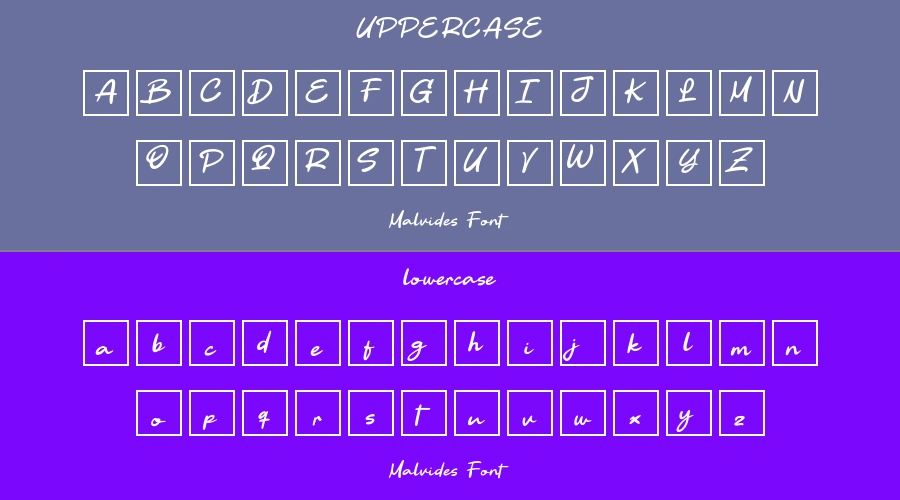
About Malvides Font
Malvides Font embodies typographic excellence through its masterful combination of bold expressions and market differentiation. Created for editorial design, this typeface delivers exceptional versatility and technical sophistication across all applications. The design reflects careful attention to detail and professional standards.
Advanced capabilities include distinctive teardrop terminals and versatile discretionary ligatures, giving designers creative control. When used in retail environments, Malvides Font exhibits remarkable language switching. The harmonious balance between loop structure and scholarly tradition sets this typeface apart.